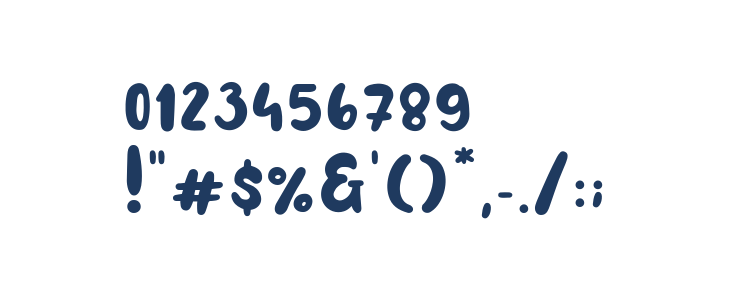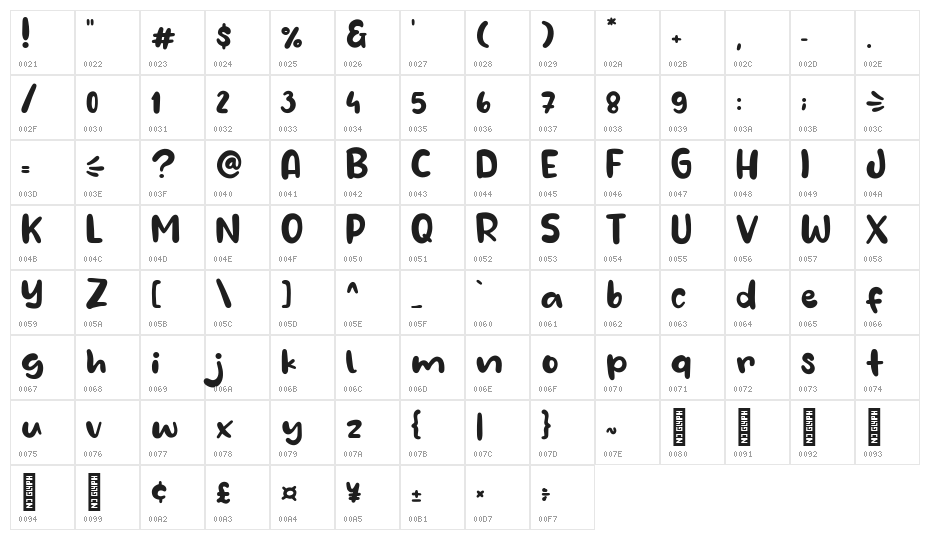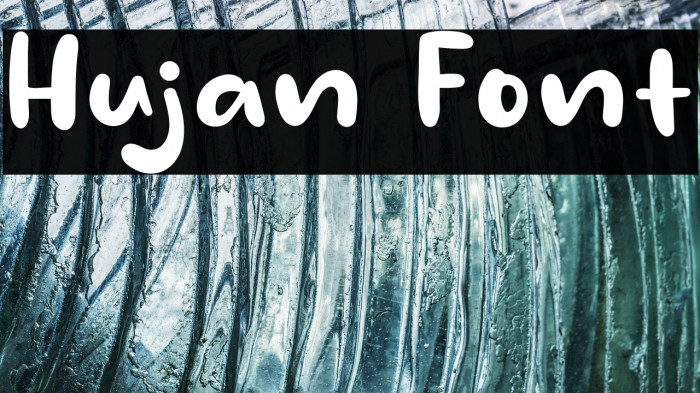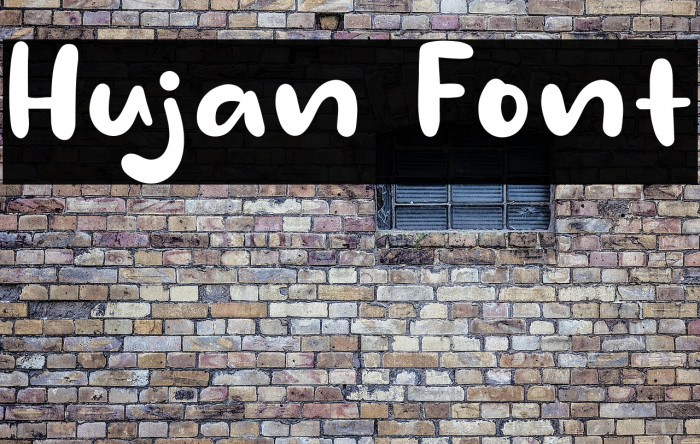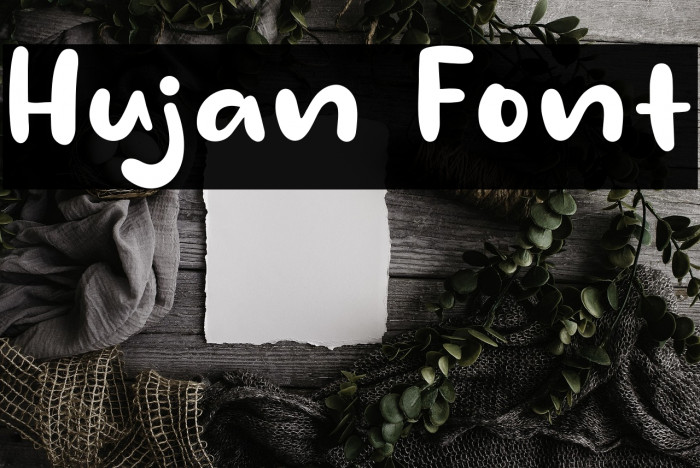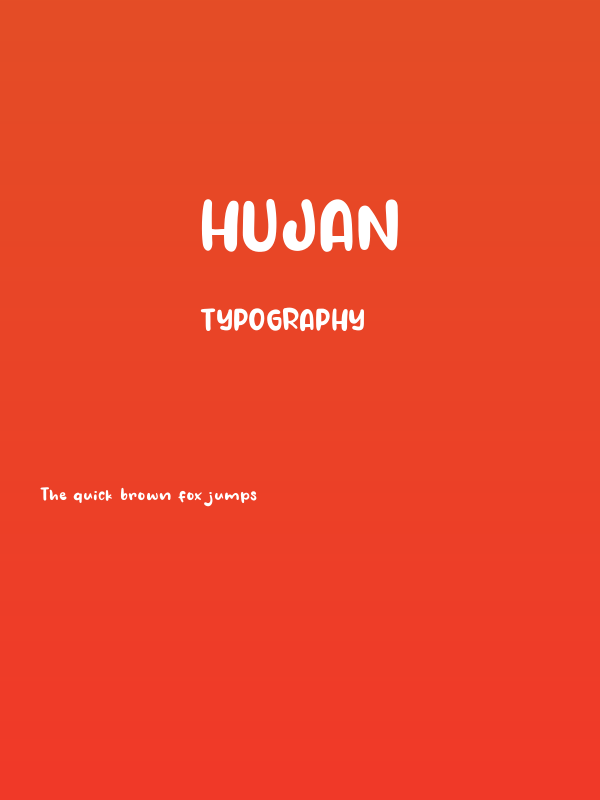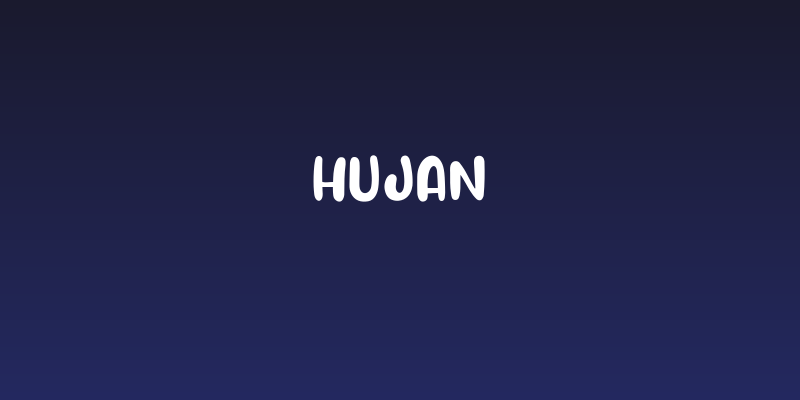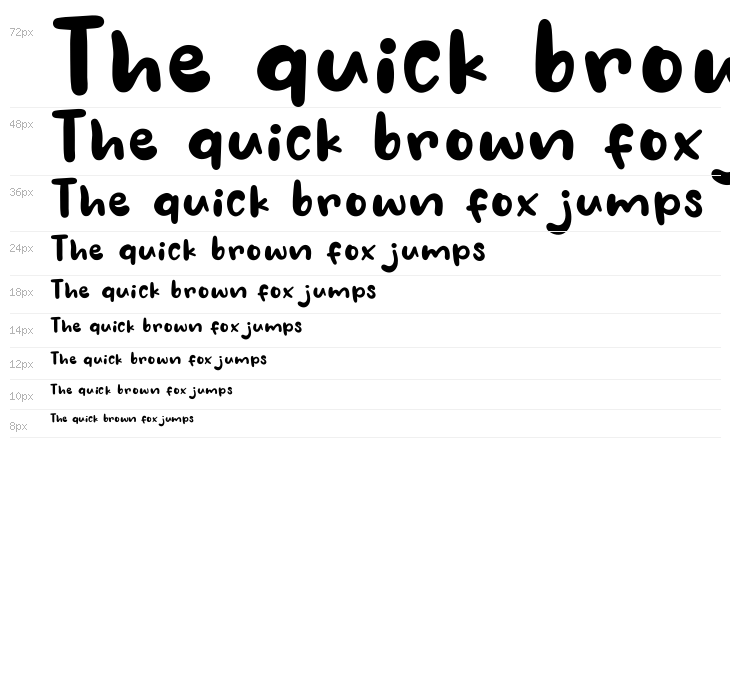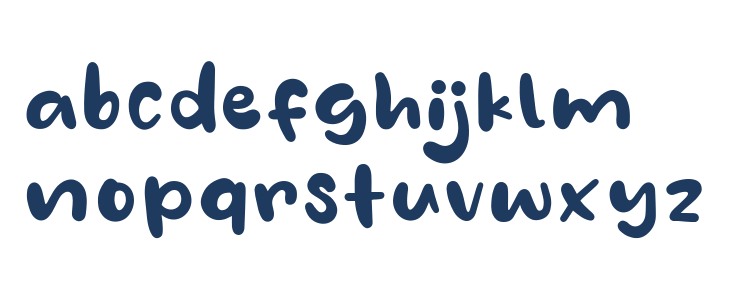
Hujan Font
Hujan Description
This playful and rounded font features a bold and friendly appearance, characterized by its smooth curves and consistent stroke width. The letters have a hand-drawn quality, adding a personal and approachable feel. The uppercase and lowercase letters maintain a uniform style, with slightly exaggerated curves that enhance its whimsical nature. The numbers and special characters follow the same design principles, ensuring a cohesive look across all elements. This font is ideal for projects that require a touch of fun and creativity.
Overall StylePlayful
Proposed ProjectsGreat for children's books, playful branding, casual invitations, and creative posters.